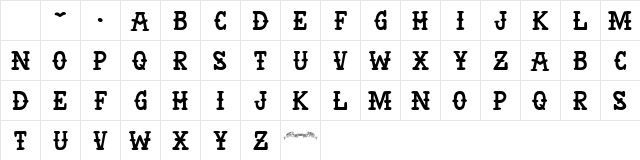
AntiHero Regular
Complete AntiHero Regular glyph index. Displaying only characters natively supported by AntiHero Regular font.
Design Context for AntiHero
AntiHero is a composed and adaptable typeface that performs quietly and consistently across a wide range of design contexts.